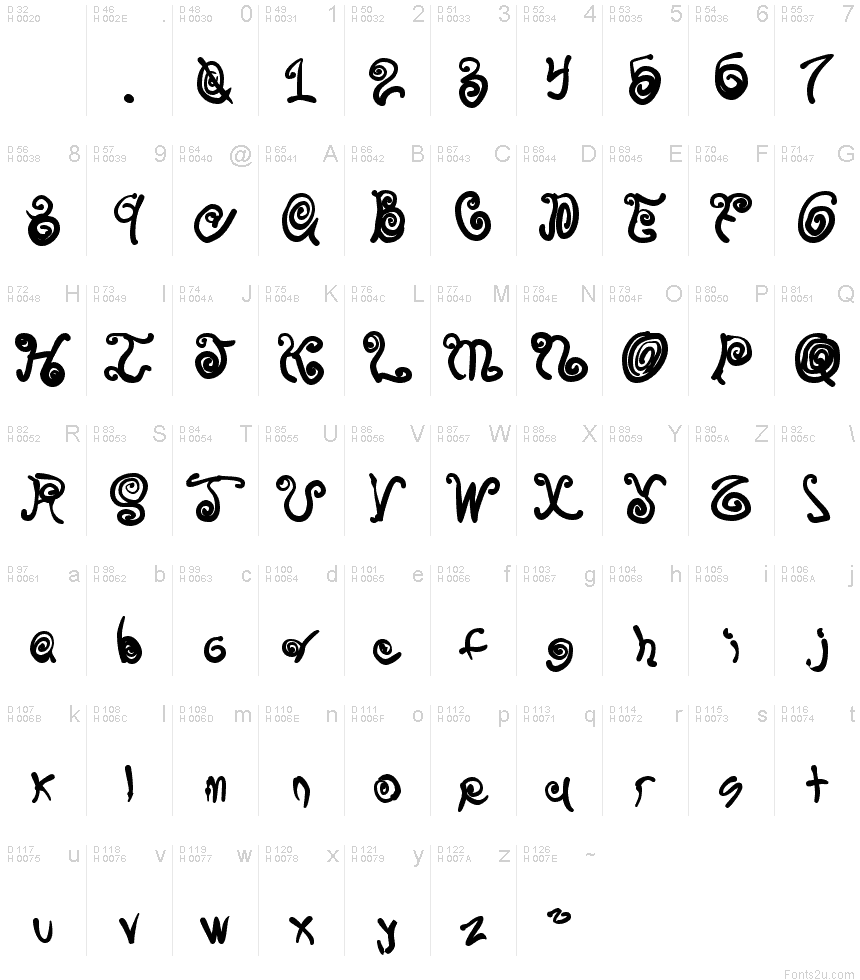
Spurly Curly
Spurly Curly by OMEGA Font Labs is a free curly display font with a playful, late-90s novelty feel. The letters coil into big spiral curls and rounded strokes, giving the whole font a bouncy, hand-drawn rhythm that feels more doodled than formal.
It fits posters, party flyers, kids' packaging, scrapbook titles, and cheeky cafe signs where a free font can carry the mood before anyone reads the words. Use it for short headlines, cover lines, or monogram-like initials, because those looping curls and soft, swelling shapes do the most work when the text stays brief.